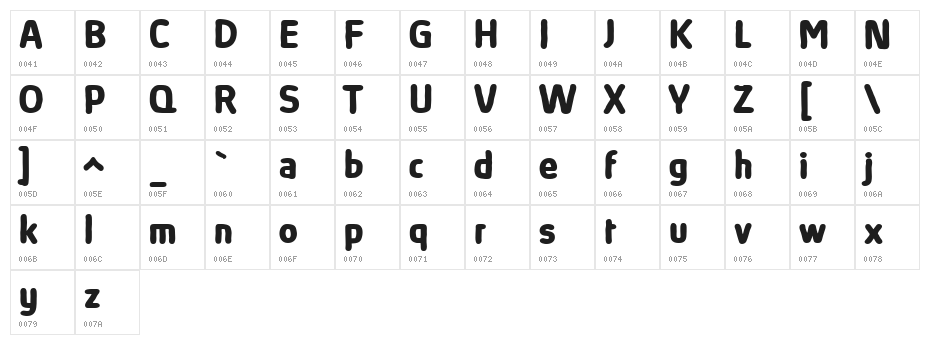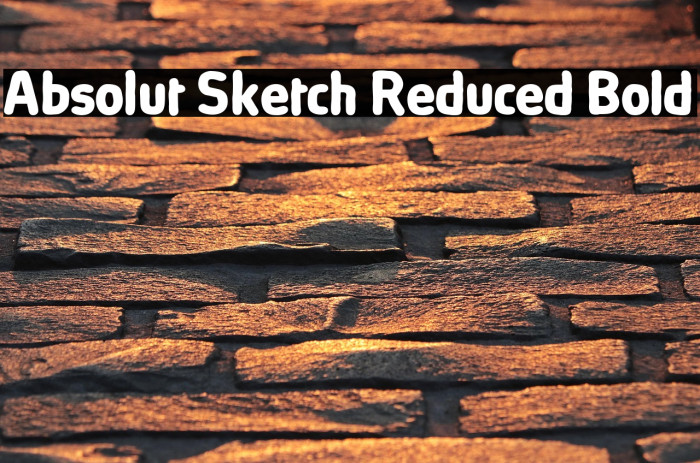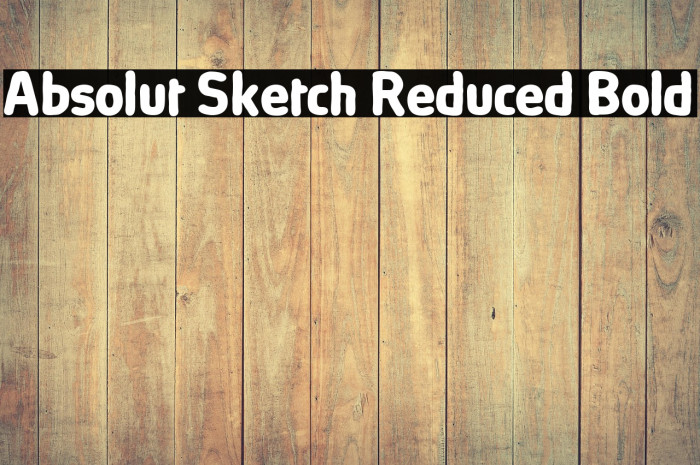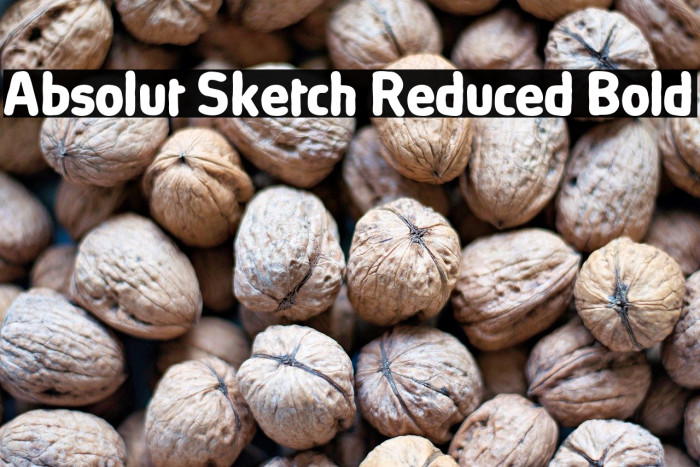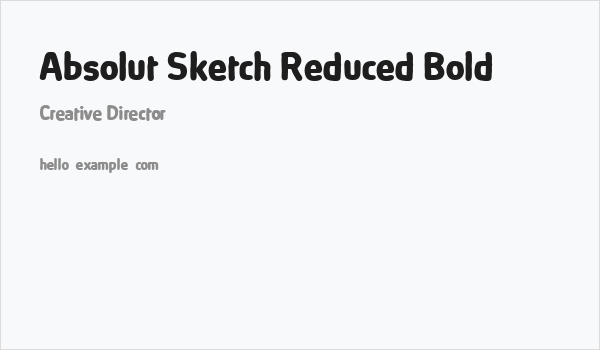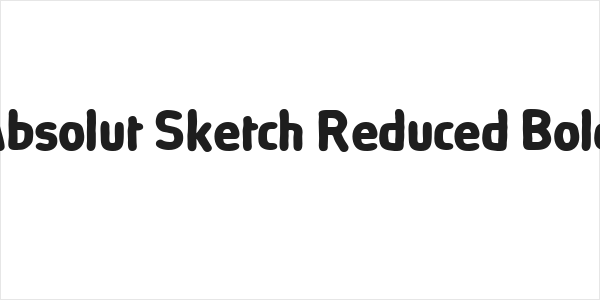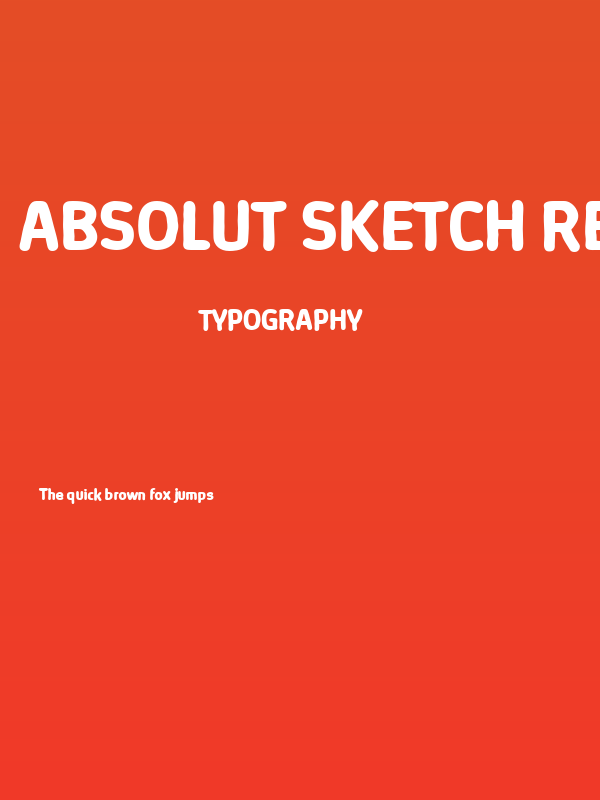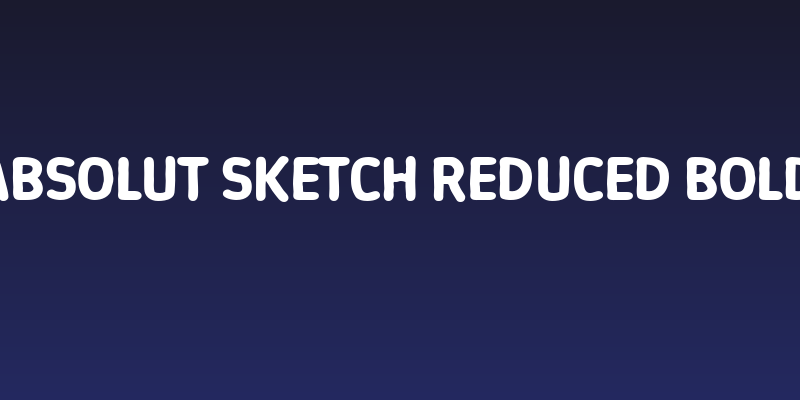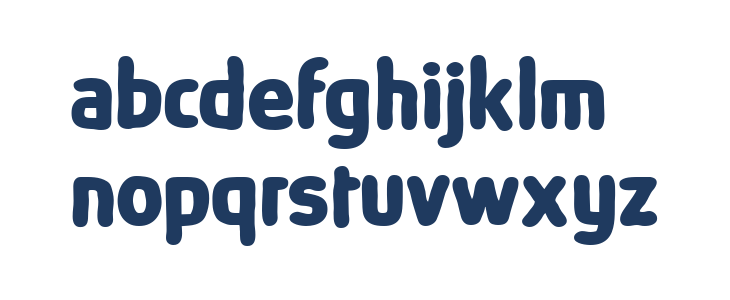
Absolut Sketch Reduced Bold Font
Absolut Sketch Reduced Bold Description
This font features a bold and playful design with rounded edges and a hand-drawn aesthetic. The characters are thick and uniform, giving a sense of stability and friendliness. The uppercase and lowercase letters maintain a consistent style, with a slightly condensed appearance that enhances readability. The font's unique charm lies in its sketch-like quality, which adds a touch of creativity and informality. It is well-suited for projects that require a casual yet impactful look, such as children's books, playful branding, or creative posters.
| Overall Style | Playful, Creative, Informal |
| Proposed Projects | Ideal for children's books, playful branding, creative posters, and informal designs. |